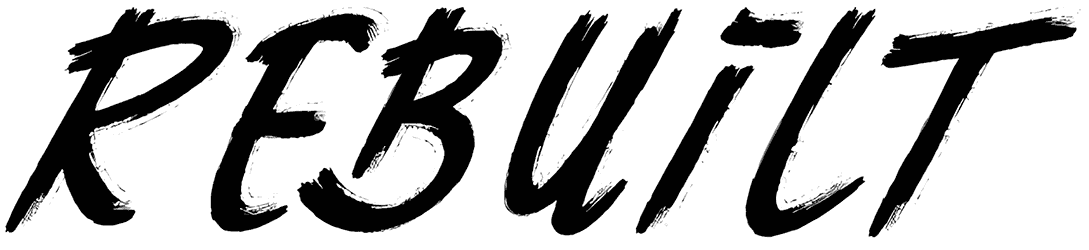
Rebuilt Font
Rebuilt is designed to suit a wide range of projects from urban aesthetics to complex branding initiatives. This brush font is developed based on handwritten fonts and features characters that can completely transform the look and change your design.
This textured font with irregular bases, even without lowercase letters, looks very attractive in logo design, stationery, and writing on t-shirts.